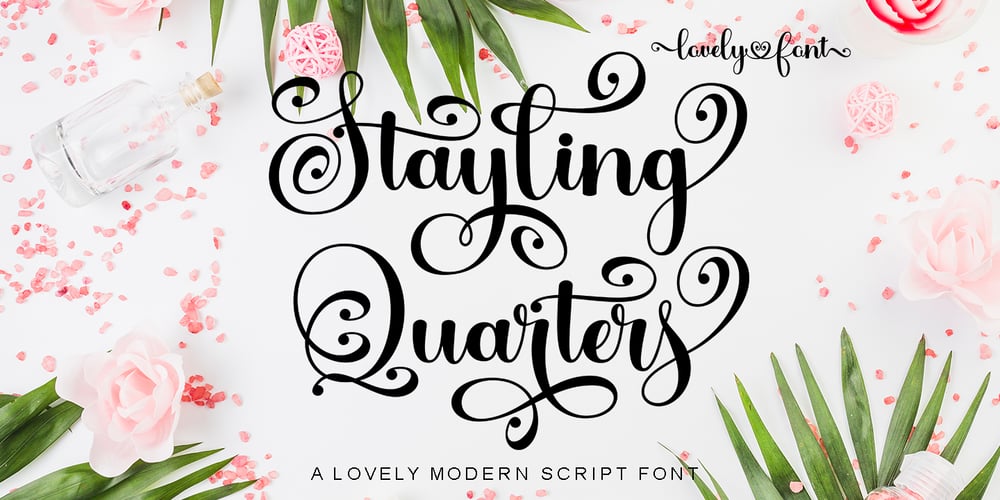
Stayling Quarters Font Family was designed by Teuku Bustami and published by TM Type. Stayling Quarters contains 1 styles and family package options. Stayling Quarters is a romantic and sweet calligraphy typeface with characters that dance along the baseline. It will add a luxury spark to any design project that you wish to create! This font is PUA encoded which means you can access all of the amazing glyphs and ligatures with ease!